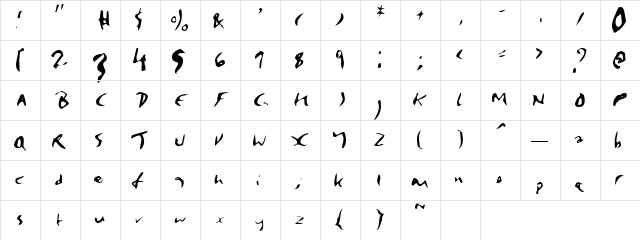
Enya Regular
Design Context for Enya Typeface
Enya is a composed and adaptable typeface that performs quietly and consistently across a wide range of design contexts.